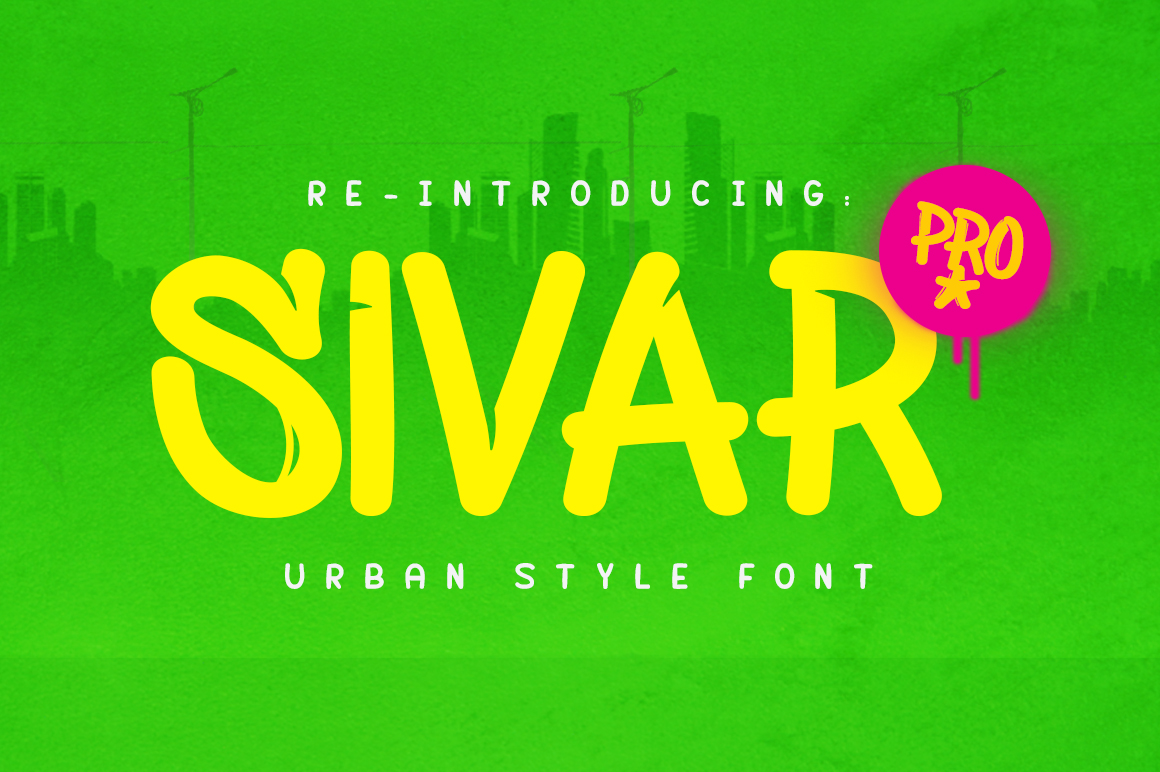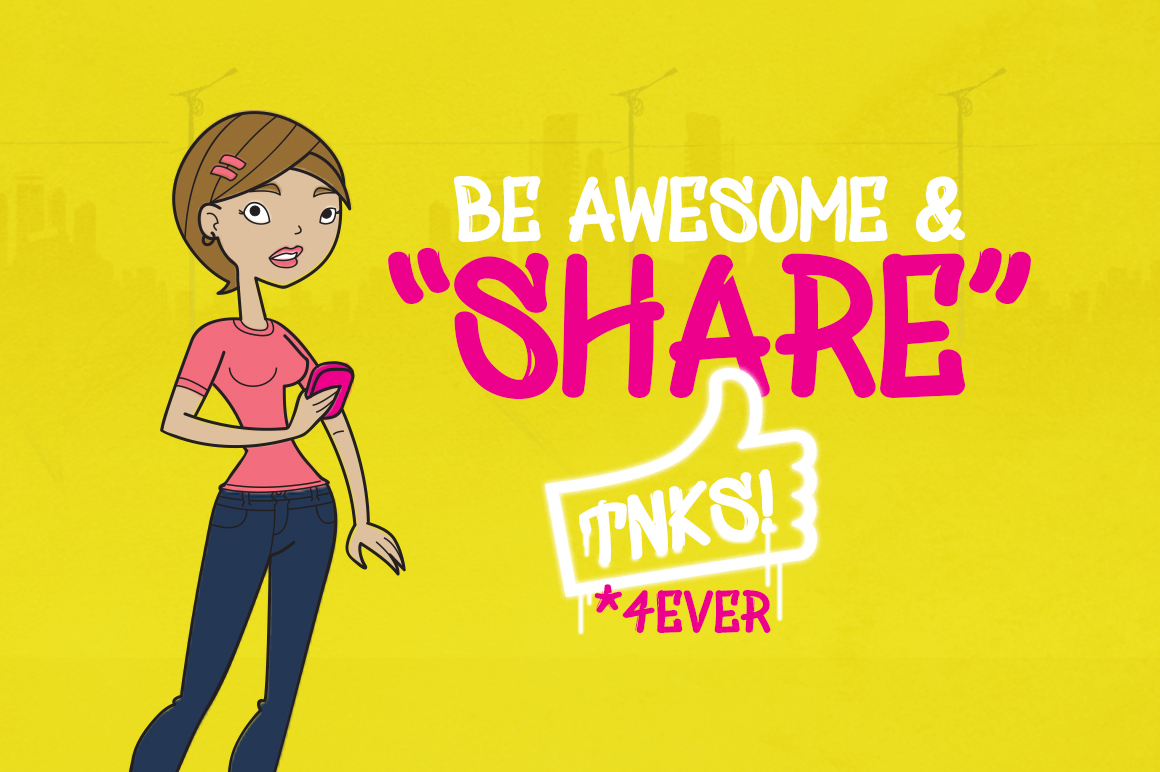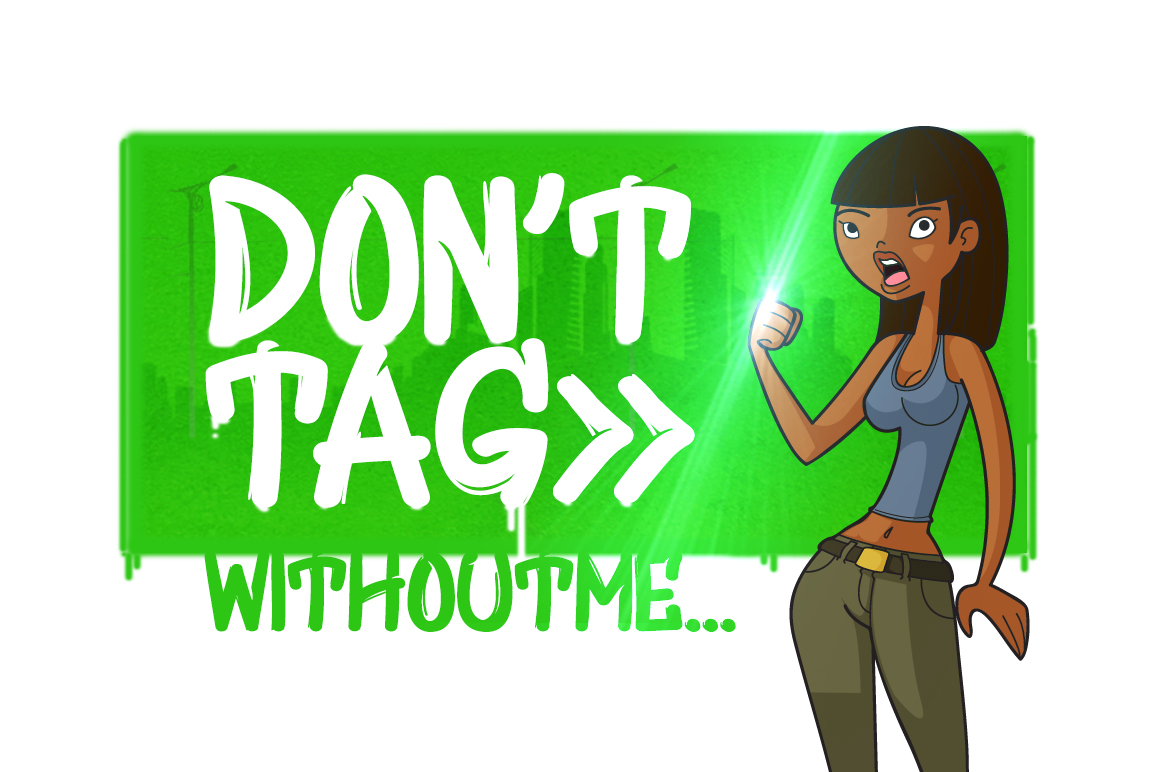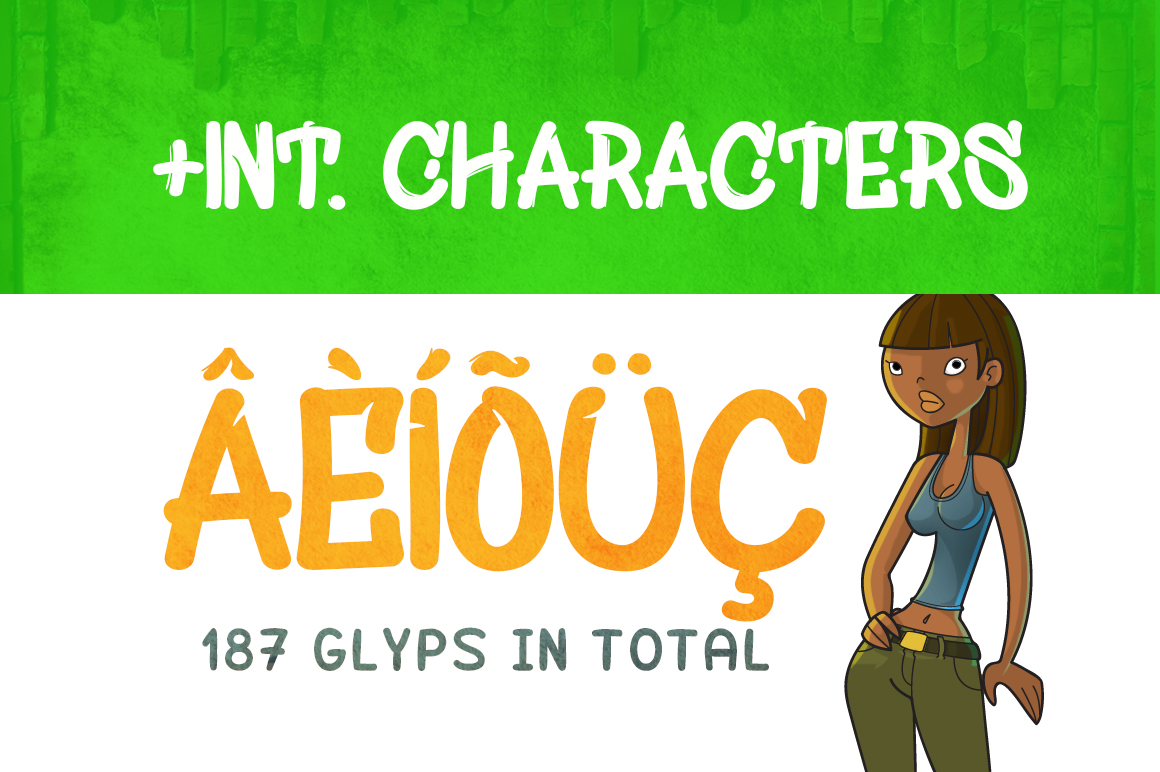
Sivar Pro – Urban Font
Sivar Pro is a urban style inspired display font that is perfect for short strong messages all type design, the file includes .OTF format.
It comes with 187 glyphs + some international characters for multiple language support. Enjoy! and be awesome.